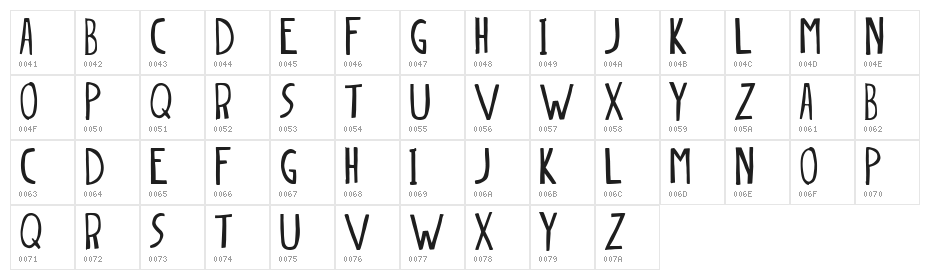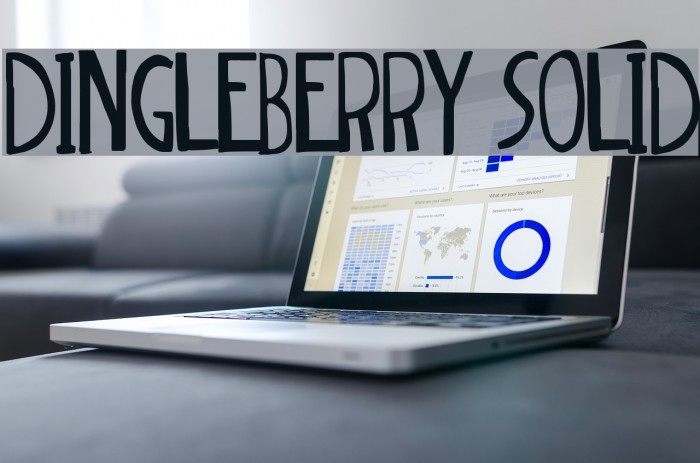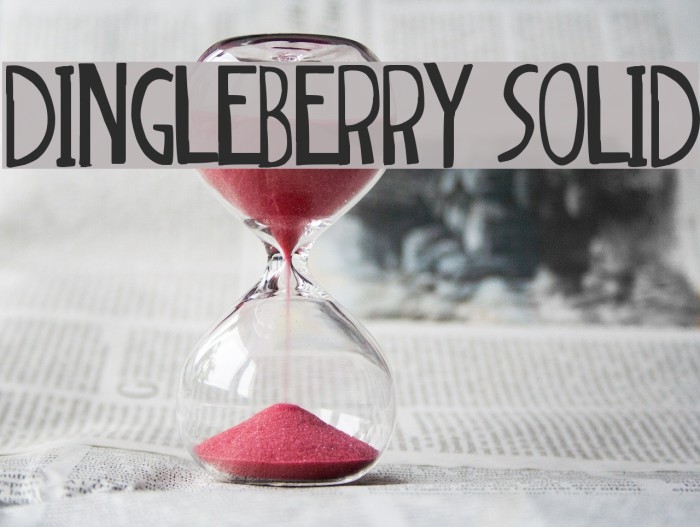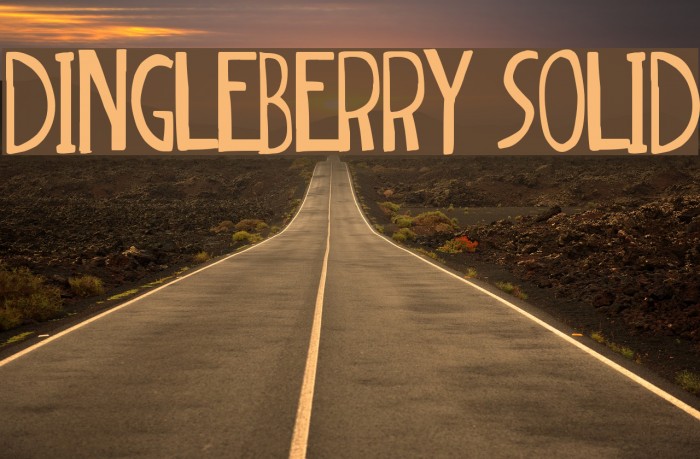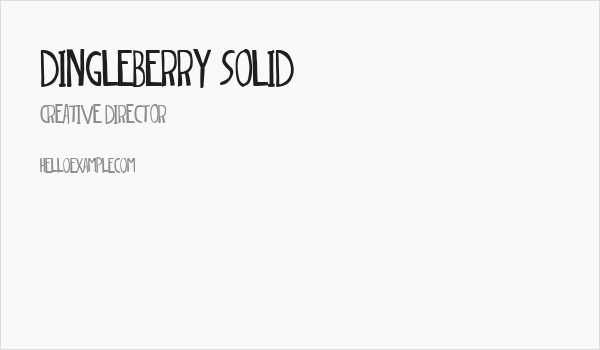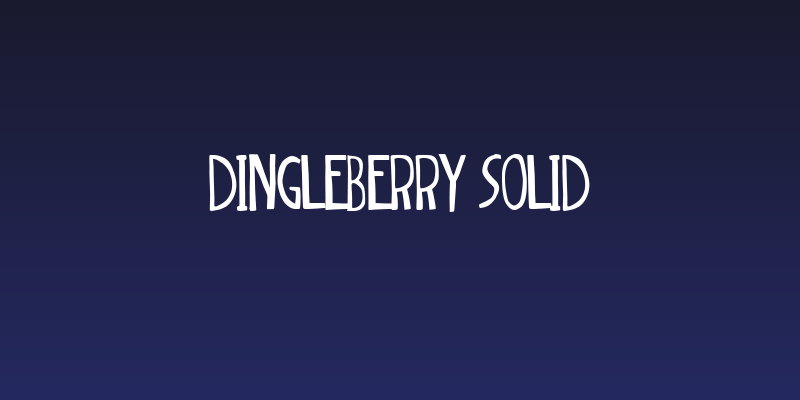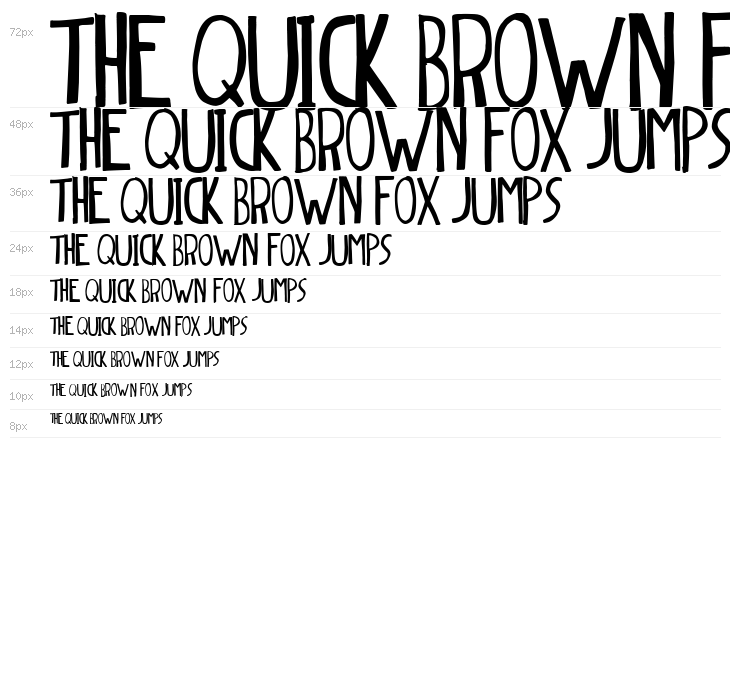
dingleberry solid Font
dingleberry solid Description
This font features a playful and bold style with a hand-drawn appearance. The letters are tall and slightly irregular, giving them a whimsical and informal look. The strokes are thick and consistent, providing a strong visual impact. The overall design is casual and friendly, making it suitable for projects that require a fun and approachable aesthetic. The uppercase and lowercase letters maintain a uniform height, contributing to a cohesive and balanced appearance. The font's unique character shapes add a touch of creativity and personality, making it ideal for designs that aim to stand out.
| Proposed Projects | Great for children's books, playful branding, casual invitations, and creative posters. |